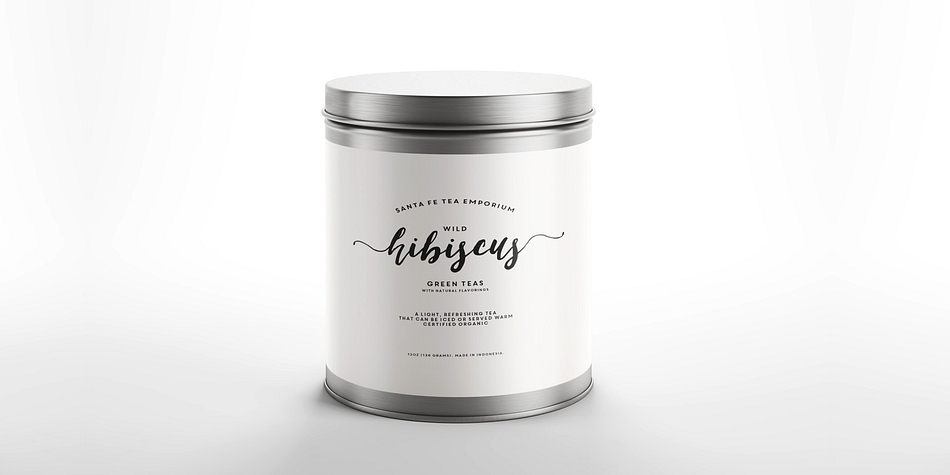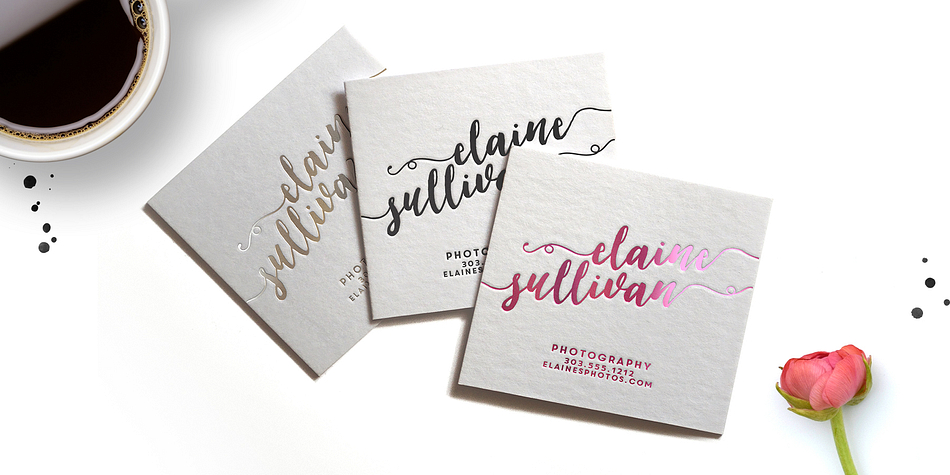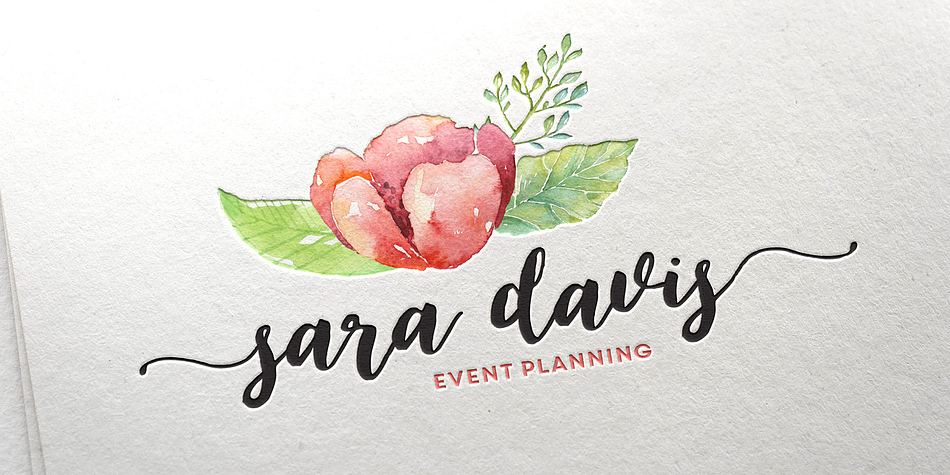
Designed by Callie Hegstrom, Loveletter Script is a brush script font published by MakeMediaCo.
Introducing Loveletter Script - an elegant, flirty, calligraphy-style script with decorative end characters and a dancing baseline! So pretty on branding materials, blog headers, business cards, quotes and more!